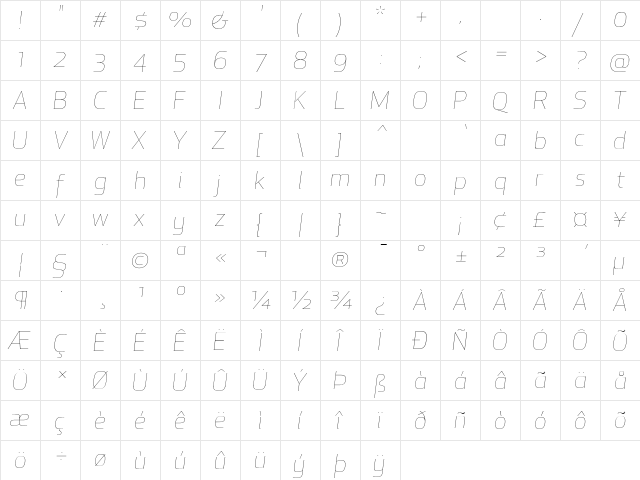
Apex New Thin Italic Font Preview
| Style | Thin Italic |
| Foundry | Village Type & Design LLC (Thirstype) |
| Designer | chester (orignally designed with Rick Valicenti) |
| Version | Version 1.001 2006, Revised version replacing Apex Sans |
Design Context for Apex New Typeface
Apex New takes a measured approach to typography — its balanced proportions and neutral character make it a reliable workhorse for both digital and print work. The dynamic lean of this cut emphasises speed and emphasis in any layout. The delicate stroke weight brings airiness and refinement to layouts.